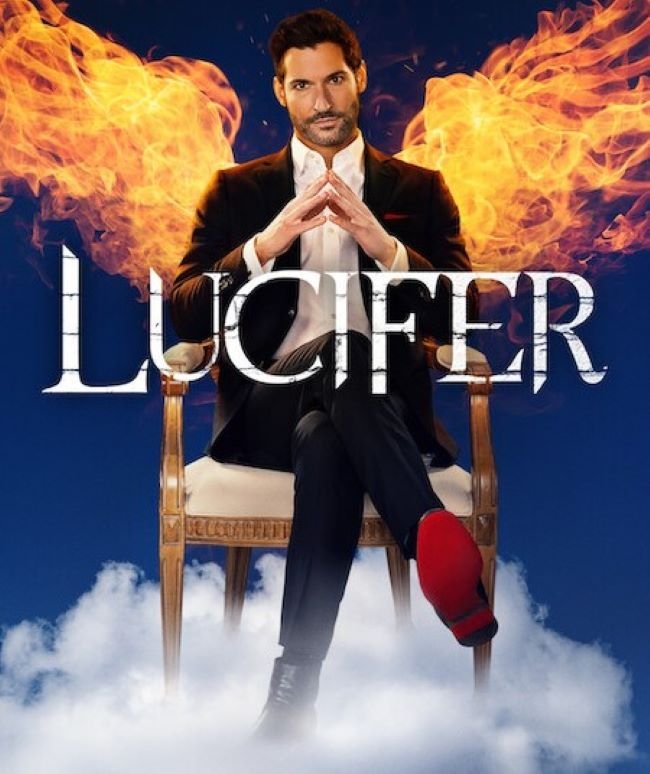
Lucifer font — designed by Matthew Walters, inspired by Trajan Pro — places the Fox and later Netflix series’ title in the classical Roman inscription tradition: tall, sharp, authoritative serif font whose proportions reference the carved stone typefaces that appeared on triumphal arches and public monuments throughout the Roman Empire, which is an impeccably appropriate choice for a show about the Devil taking up residence in Los Angeles and becoming a police consultant. The freely available Lucifer Font gives designers this commanding classical authority.